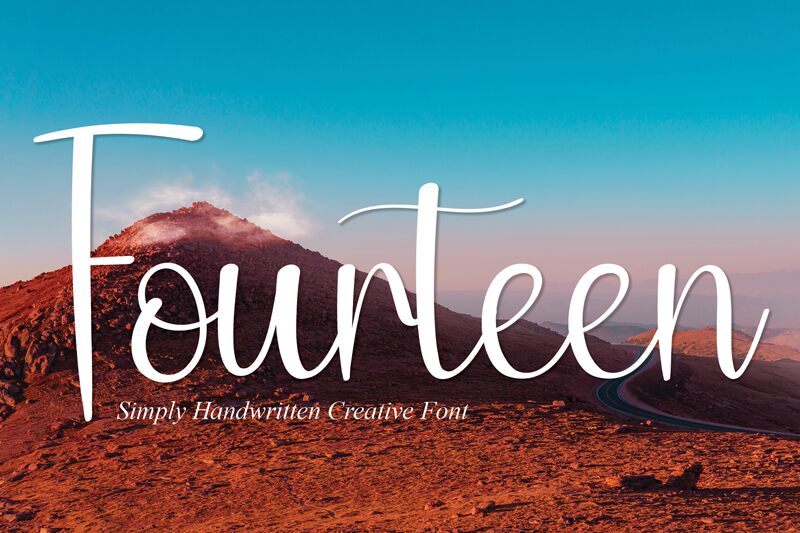
Fourteen
Fourteen, a semi-light and semi-condensed handwritten font crafted by Scratchones, exudes a harmonious blend of personal touch and refined elegance. With its fluid, organic lines and distinct character shapes, Fourteen infuses warmth into any project it graces. The careful balance between informality and legibility makes it an ideal choice for designs that require a humanistic feel without sacrificing readability.
This font's aesthetic is versatile enough to enhance various creative endeavors, from bespoke invitations to branding materials or editorial content. The semi-condensed width ensures that Fourteen is space-efficient, while the semi-light weight provides a gentle presence on the page—creating an inviting atmosphere for readers. Embrace the charm of Fourteen to add a signature flair to your design palette.